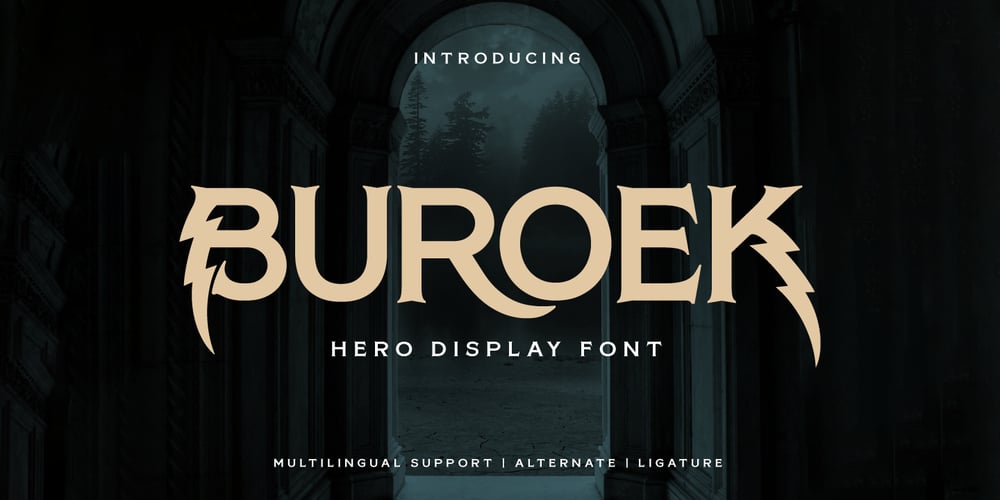
Buroek
Buroek font
Buroek Font Family was designed by Rozikan and published by Twinletter. Buroek contains 1 styles and family package options. Buroek is a display font that is not just letters, but also a spirit of courage that is expressed in every line and curve. Created in a stunning superhero style, Buroek is the perfect choice for projects that require a visual punch.What’s Included : File font All glyphs Iso Latin 1 Alternate, Ligature Simple installations PUA Encoded Characters – Fully accessible without additional design software. Fonts include Multilingual support